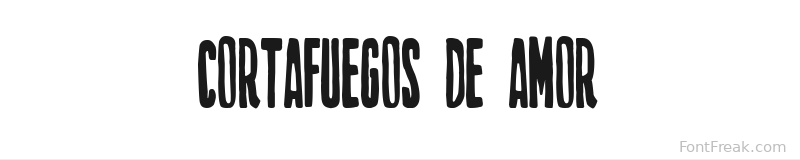
Cortafuegos de amor
Cortafuegos de amor is a striking display font designed by woodcutter Manero, offering a unique blend of modernity and organic charm. This typeface falls within the decorative category, characterized by its bold, expressive strokes that command attention. The font features a substantial stroke weight with minimal contrast, creating a sturdy and impactful presence. Its letterforms are spaced generously, ensuring excellent readability while maintaining a playful aesthetic. The design is enhanced by distinctive decorative elements that evoke a sense of whimsy, making it perfect for various creative applications.
This font is ideal for wedding invitations, where its romantic flair can set a heartfelt tone. Additionally, it shines in movie posters, effectively conveying themes of adventure or fantasy with its eye-catching style. Restaurant menus can benefit from the font's boldness, drawing patrons' attention to featured dishes. Furthermore, Cortafuegos de amor is well-suited for branding materials, allowing small business owners to create memorable logos that resonate with their audience. Graphic designers and content creators will find it a valuable asset in their toolkit, offering versatility for numerous projects.
What sets the Cortafuegos de amor font apart is its ability to blend artistic flair with functionality. The combination of its distinctive design and practical usability makes it a standout choice for anyone looking to make a statement. Whether you're crafting a romantic invitation or designing an eye-catching poster, this font adds a layer of personality that captivates viewers. With a Cortafuegos de amor font free download available, you can easily incorporate this unique typeface into your next creative venture, ensuring your designs are as memorable as they are beautiful.